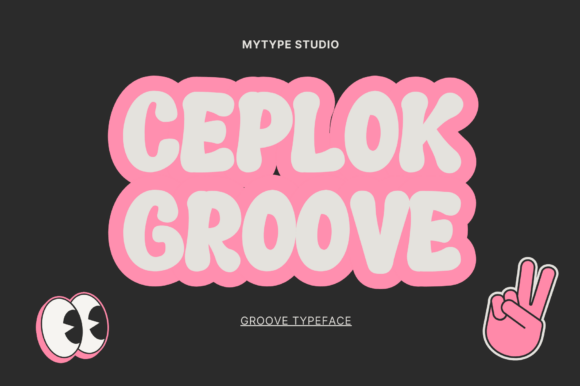
Get Ready to Groove: The Ultimate Font for Your Next Creative Project
Have you ever stared at a blank canvas, itching to bring a fresh idea to life? Maybe you’re brainstorming a new logo, crafting a social media post, or designing packaging that pops. Whatever your creative pursuit, the right font can be the missing piece that elevates your project from meh to mesmerizing.
Enter the Ceplok Groove Font, a bold and playful typeface that’s guaranteed to inject some serious fun into your design. Inspired by the funky vibes of the 1970s, this retro-chic font is perfect for anyone looking to add a cheerful, dynamic feel to their work. Whether you’re a seasoned designer or a creative newbie, the Ceplok Groove Font is a valuable addition to your toolkit – and a must-have for making bold statements that leave a lasting impression.
Ceplok Groove Font Key Features
- Font Family: Ceplok Groove is a sans-serif font family designed for modern and trendy designs. It includes 6 weights (Light, Regular, Medium, Bold, Extra Bold, and Black).
- Size: The font family includes a wide range of sizes, from 8 to 72 points, making it suitable for various design applications.
- Resolution: Designed for high-resolution displays, Ceplok Groove font is ideal for use in digital media, such as web design, mobile apps, and video games.
- Unique Characteristics: The font features a distinctive groove design, which adds a unique touch to any design. It also includes a wide range of language support, including Latin, Cyrillic, and Greek alphabets.
Ceplok Groove Font Review
I recently had the chance to work with the Ceplok Groove Font, and I must say it’s an interesting addition to the world of typography. Here are my honest thoughts:
- The Ceplok Groove Font has a unique, energetic feel to it, making it perfect for modern branding and advertising.
- The font’s bold and playful nature makes it stand out, even in crowded digital spaces.
- The font is highly customizable, allowing designers to fine-tune the look to fit their specific needs.
- The font’s complexity can sometimes make it difficult to read, especially in smaller sizes.
- The font’s boldness can be overwhelming in certain contexts, making it hard to achieve a balanced look.
- The font’s unique style may not be suitable for more traditional or conservative designs.
Overall, I think the Ceplok Groove Font is a great choice for designers looking to add some excitement to their projects. While it has some limitations, its unique style and customization options make it a valuable tool in any designer’s arsenal.
Tips for Getting the Most Out of Ceplok Groove Font
Use Ceplok Groove Font to add a unique touch to your designs, especially for titles and headings.
Combine it with other fonts to create a visually appealing contrast.
Experiment with different font sizes and styles to create a cohesive look.
Ceplok Groove Font is perfect for:
Designing eye-catching titles and headings.
Creating unique branding materials, such as logos and business cards.
Adding a